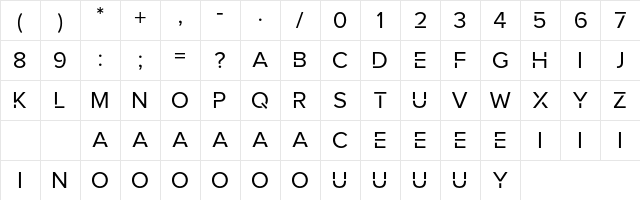
Robota-NonCommercial Regular
| Designer | Robin Campistron |
Robota-NonCommercial offers clean, dependable letterforms without strong stylistic allegiance, making it a practical choice for designers who need flexibility.